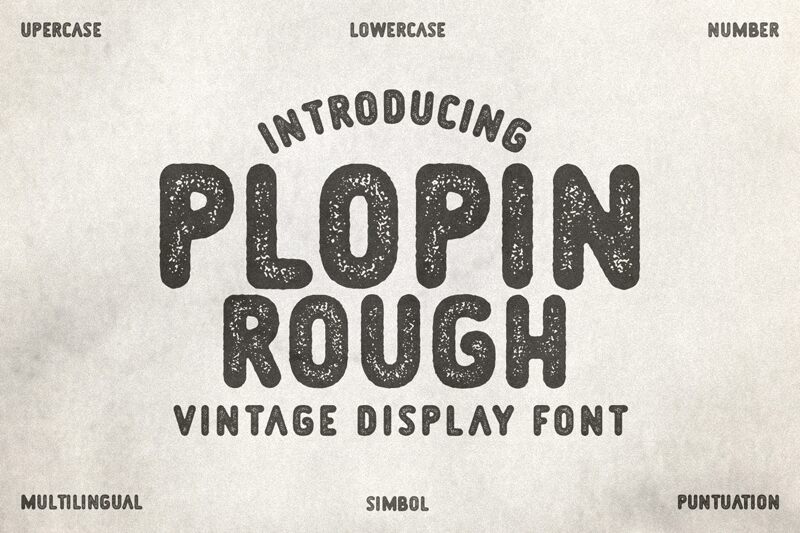
Plopin Rough
Plopin Rough, a display font crafted by Typeline Studio, stands out with its uniquely eroded texture that adds a raw and rugged charm to every character. The semi-light weight of the font provides a delicate balance, giving it an approachable yet sturdy appearance. Its eroded style evokes a sense of nostalgia and authenticity, making it perfect for projects that aim to capture a vintage or handcrafted feel.
The aesthetic appeal of Plopin Rough lies in its ability to blend imperfection with legibility. Each letter showcases speckled details and distressed edges that are visually captivating without compromising readability. This makes the font exceptionally versatile for various creative endeavors — from eye-catching logos to atmospheric poster designs.
Embrace the distinctive edge that Plopin Rough brings to your design work; whether you're channeling an urban vibe or creating something with an organic touch, this font's textured personality is sure to enrich your project's visual narrative.